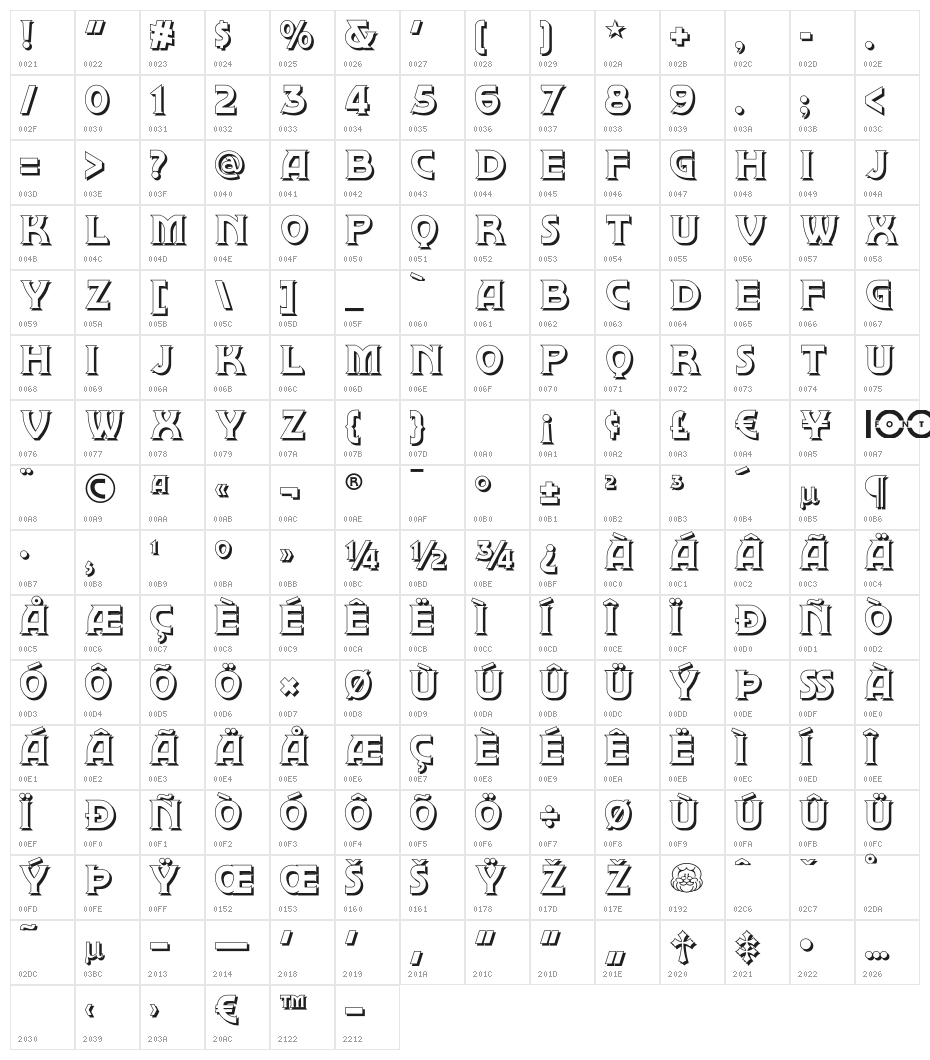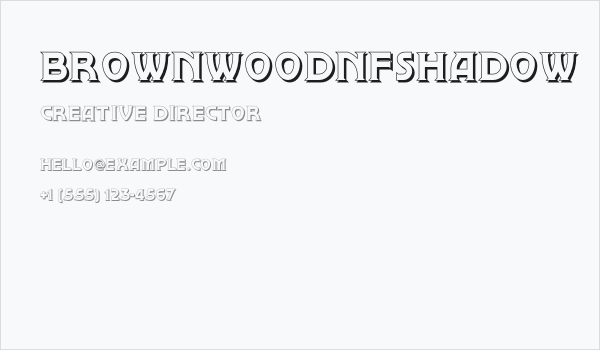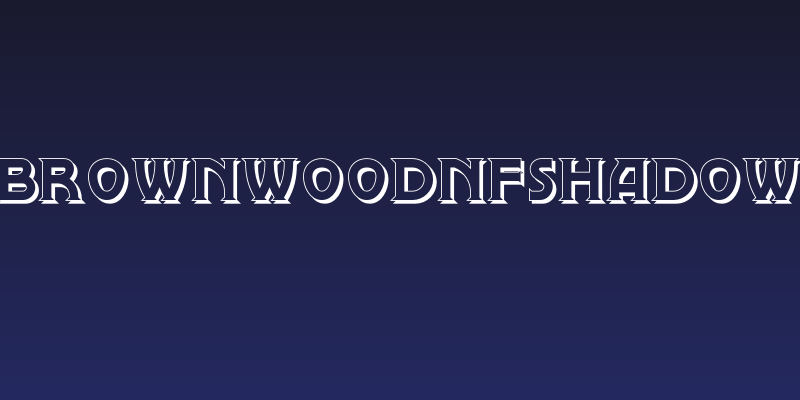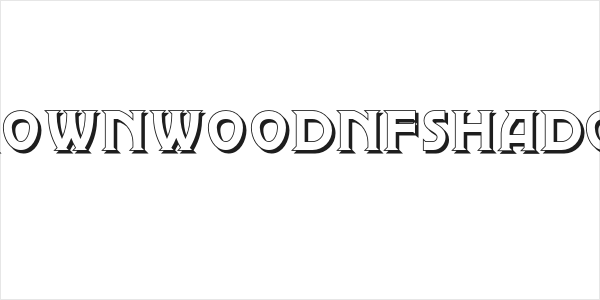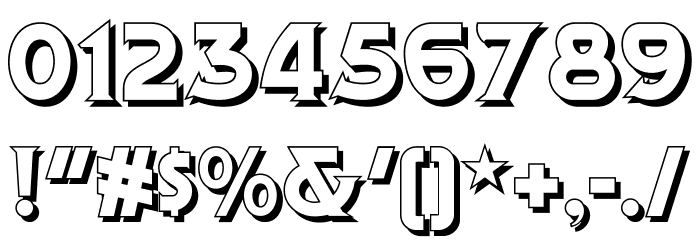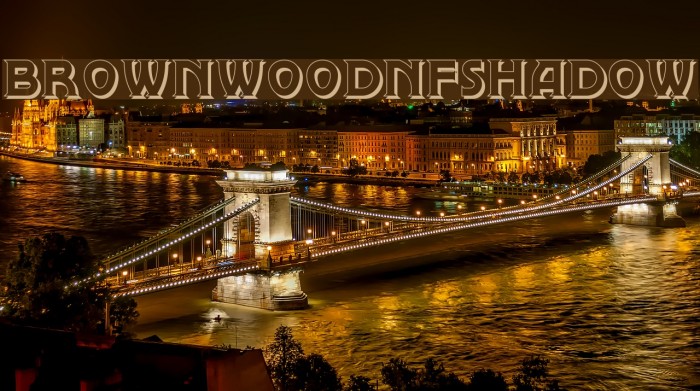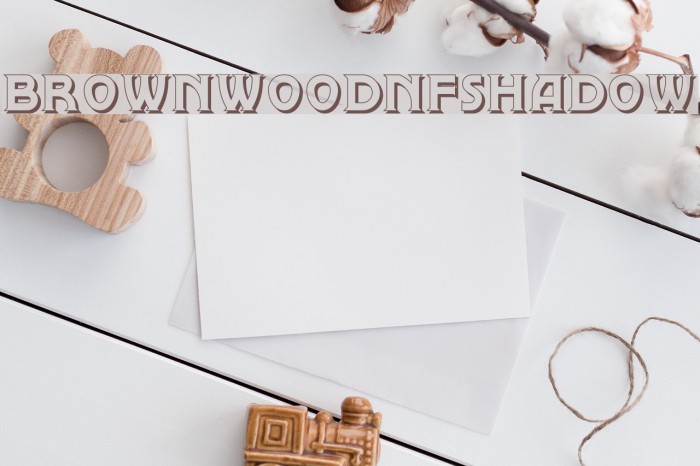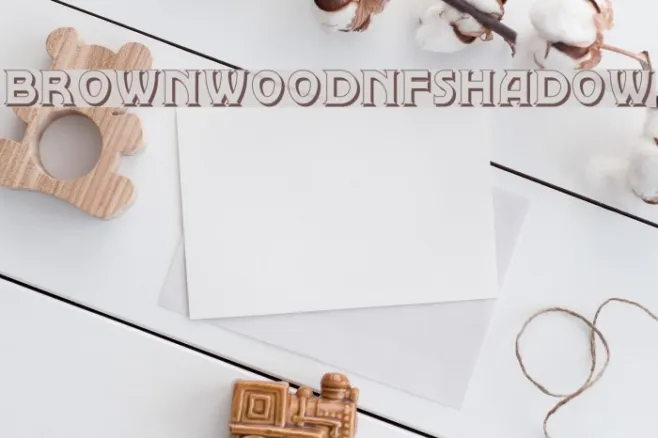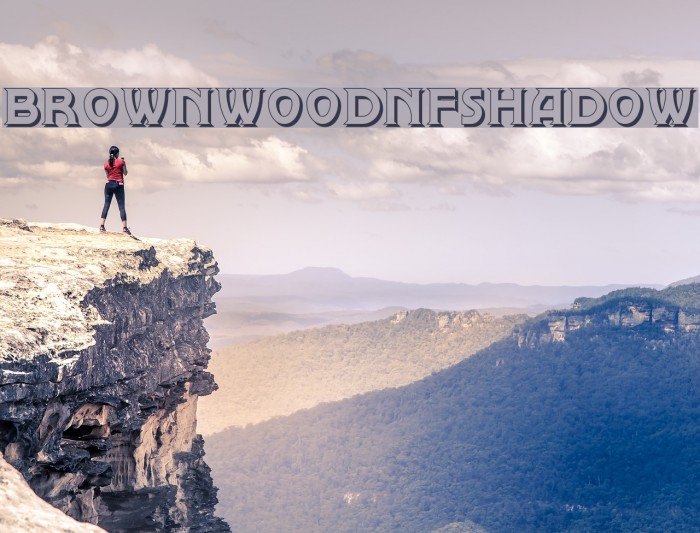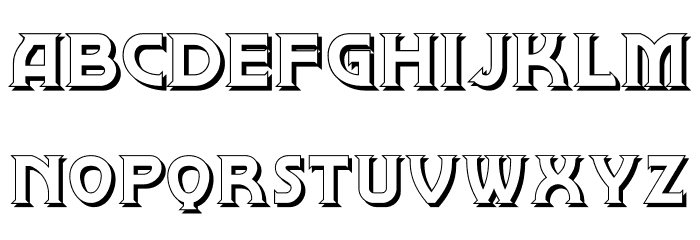
BrownwoodNFShadow Font
BrownwoodNFShadow Description
This font features a bold and decorative style with a distinct shadow effect that adds depth and dimension to each character. The uppercase letters are designed with strong, angular lines and a three-dimensional appearance, making them stand out prominently. The lowercase letters maintain the same boldness and shadowed style, ensuring consistency throughout the typeface. Numbers and special characters are also included, each with the same shadowed, bold design. This font is ideal for projects that require a striking and eye-catching display, such as posters, headlines, or branding materials.